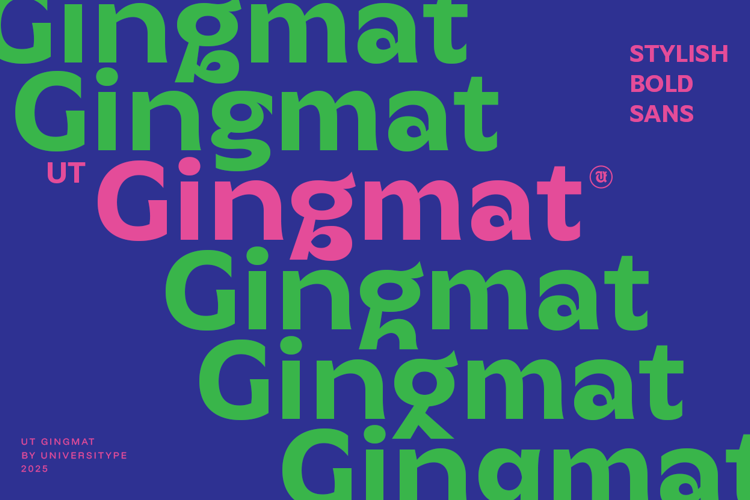
UT Gingmat Font
UT Gingmat is a bold, stylish sans-serif typeface designed for modern branding and striking visuals. With its geometric structure and playful details, it balances clarity with personality—making it ideal for posters, logos, digital interfaces, and packaging. The font draws inspiration from urban culture and contemporary design, offering a fresh yet approachable feel. Perfect for creatives, brands, and designers seeking standout typography, Gingmat adapts to both vibrant color-heavy layouts and clean minimalist styles. Available in OTF, TTF, and WOFF formats with multilingual support, Gingmat delivers versatility, precision, and a distinctive edge for projects that demand attention.